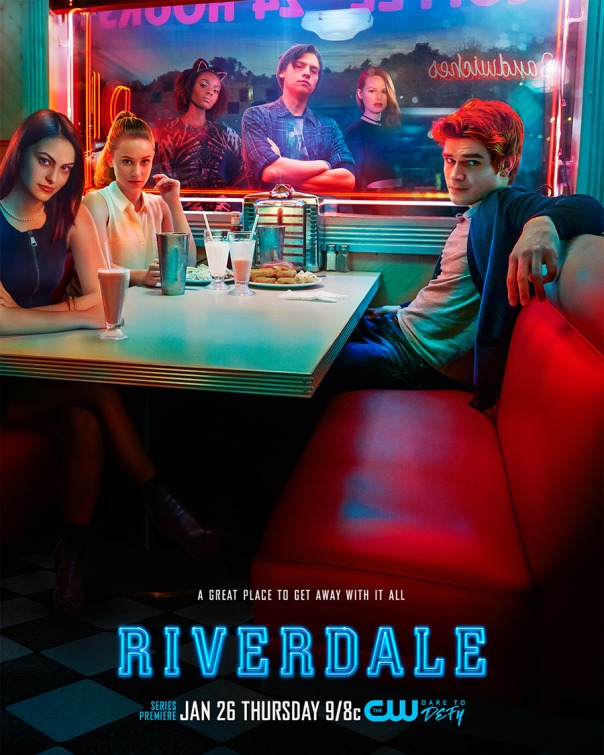
Riverdale Font
DramaRiverdale is an American teen drama television series based on the characters of Archie Comics. It follows the lives of Archie Andrews, Betty Cooper, Jughead Jones, and their friends as they uncover the dark secrets of their small town of Riverdale.
The TV show title on the poster probably uses the Colossalis font by Aldo Novarese, a slab serif with narrow widths and flat outer curves. More details about the font can be found here.